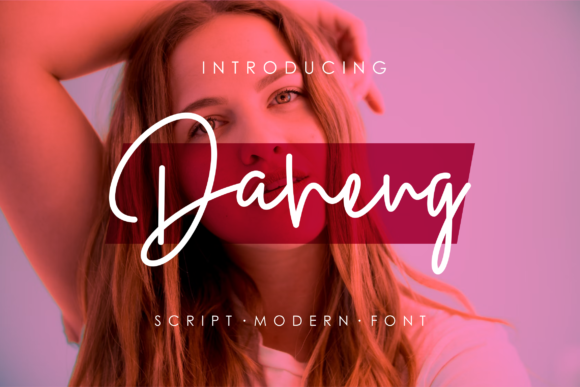
Discover the Perfect Script for Your Next Design Project
Imagine you’re brainstorming ideas for a new branding project, and suddenly, a burst of inspiration hits you – a stylish script font that perfectly captures the essence of your brand. For designers, finding that perfect font can be a game-changer. This is where the Daheng Font comes in, a beautifully crafted script font that’s designed to make your branding projects stand out.
With its authentic and stylish feel, the Daheng Font is perfect for a wide range of applications, from logos and t-shirt printing to sports and more. Whether you’re working on a personal or professional project, this font is sure to elevate your design to the next level. Its versatility and timeless design make it a valuable addition to any designer’s toolkit, and we can’t wait to share its story with you.
Daheng Font Key Features
- Unique Characteristics: Daheng Font features a unique blend of traditional and modern elements, with intricate details and flourishes that set it apart from other fonts.
- Stylistic Sets: Daheng Font includes multiple stylistic sets, allowing users to customize the font’s appearance and create unique variations for different design projects.
Daheng Font Review
I recently had the chance to work with the Daheng Font, and I must say it’s a unique addition to any design project. Here are some of its standout features: ✨
- Highly customizable: The Daheng Font offers an impressive array of options for customization, allowing designers to fine-tune the look and feel to suit their specific needs.
- Wide language support: This font supports a wide range of languages, making it a great choice for multilingual projects.
- Unique aesthetic: The Daheng Font’s distinctive design gives projects a touch of elegance and sophistication.
- Lack of consistency: I found that the font’s design can be inconsistent across different sizes and styles, which may require additional tweaking.
- Not ideal for body text: While the Daheng Font looks great for headlines and titles, it may not be the best choice for body text due to its decorative nature.
Overall, I think the Daheng Font is a great addition to any designer’s toolkit, but it’s essential to be aware of its limitations. With careful selection and customization, it can add a unique touch to any project.
Tips for Getting the Most Out of Daheng Font
Here are some tips to help you get the most out of Daheng Font:
- Combine Daheng Font with other fonts for a cohesive design.
- Use Daheng Font for titles and headings to create a strong visual impact.
Daheng Font is suitable for a variety of use cases, including:
- Logo design
- Choose a bold quote or phrase that resonates with your personal style.
- Use a digital drawing tool or a graphics editor like Adobe Illustrator to create a vector design.
- Choose a solid background color and arrange the quote in a clean and simple layout.
- Pair with geometric shapes, like triangles or circles, to add visual interest.
- Use a limited color palette to maintain a minimalist aesthetic.
- Experiment with different font sizes and arrangements to create a dynamic layout.
- Design a custom book cover using a digital drawing tool or a graphics editor.
Transform a plain wall into a visually stunning canvas with a minimalist quote wall featuring Daheng Font. The unique font style will add a touch of sophistication to your home decor.
To use Daheng Font in this project:
Combining Daheng Font with other design elements:
Project 2: Hand-Drawn Book Title
Create a charming book title that showcases the playful side of Daheng Font. This project is perfect for book lovers and crafty individuals.
To use Daheng Font in this project:
Combining Daheng Font with other design elements: